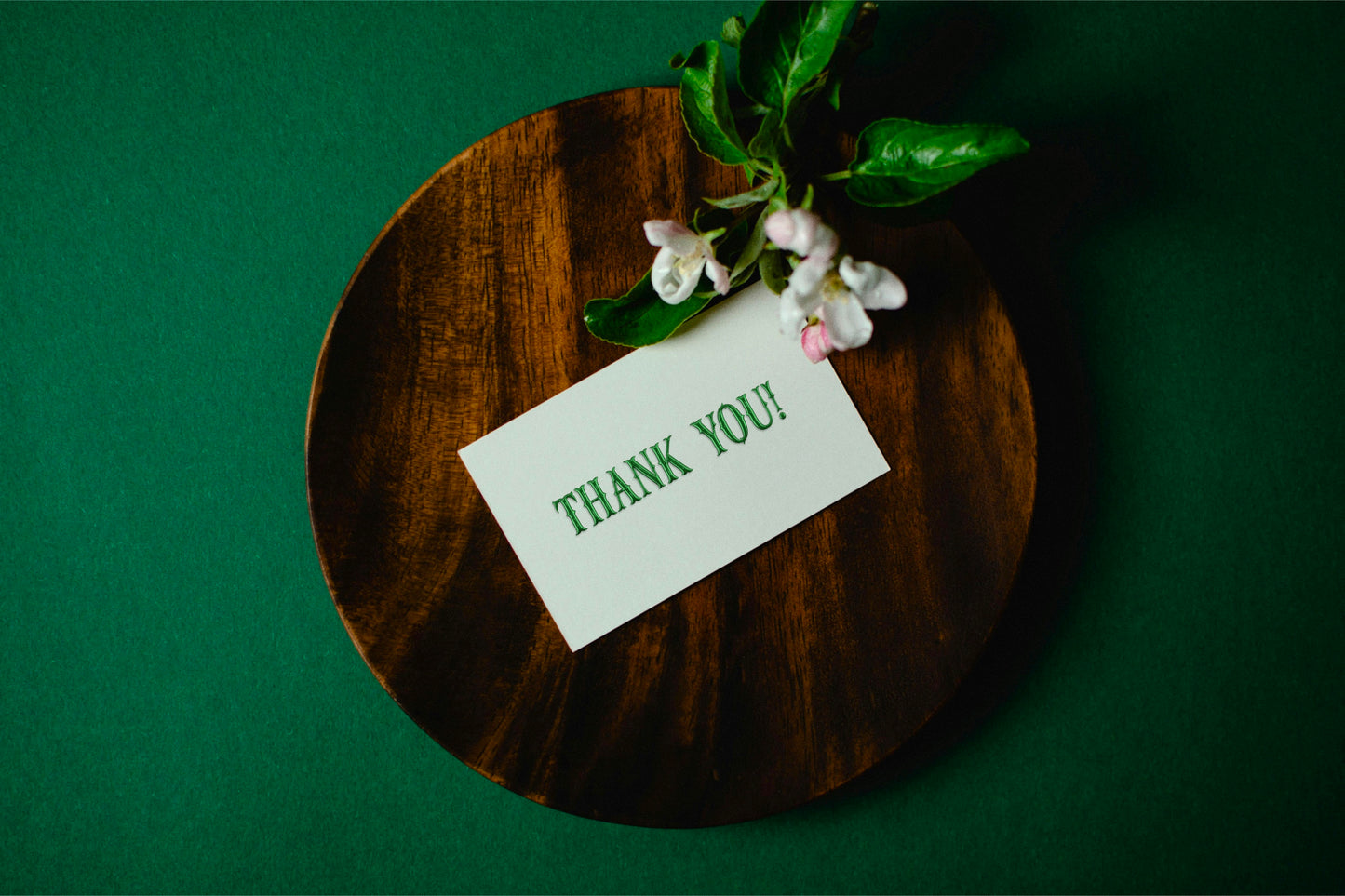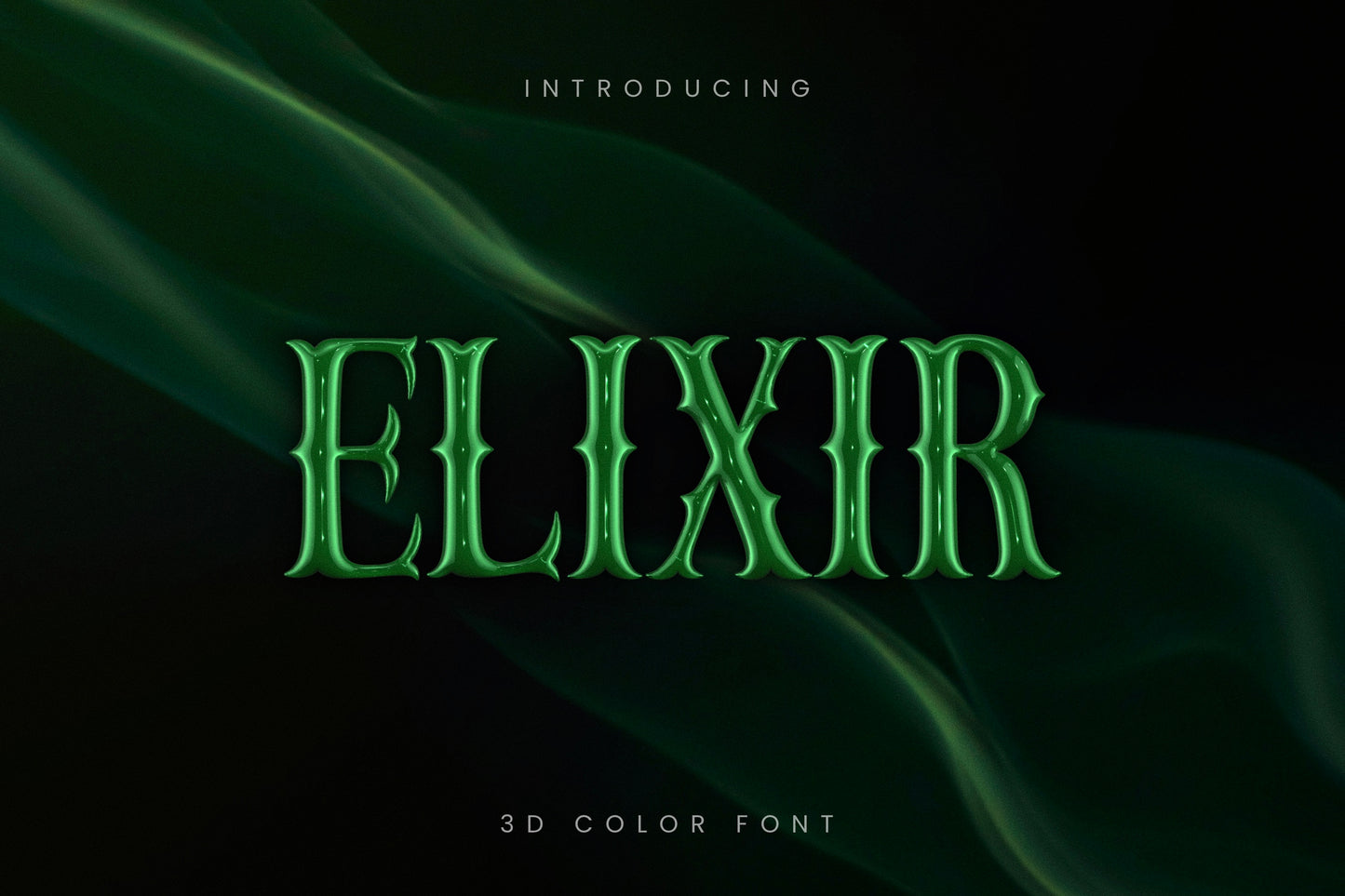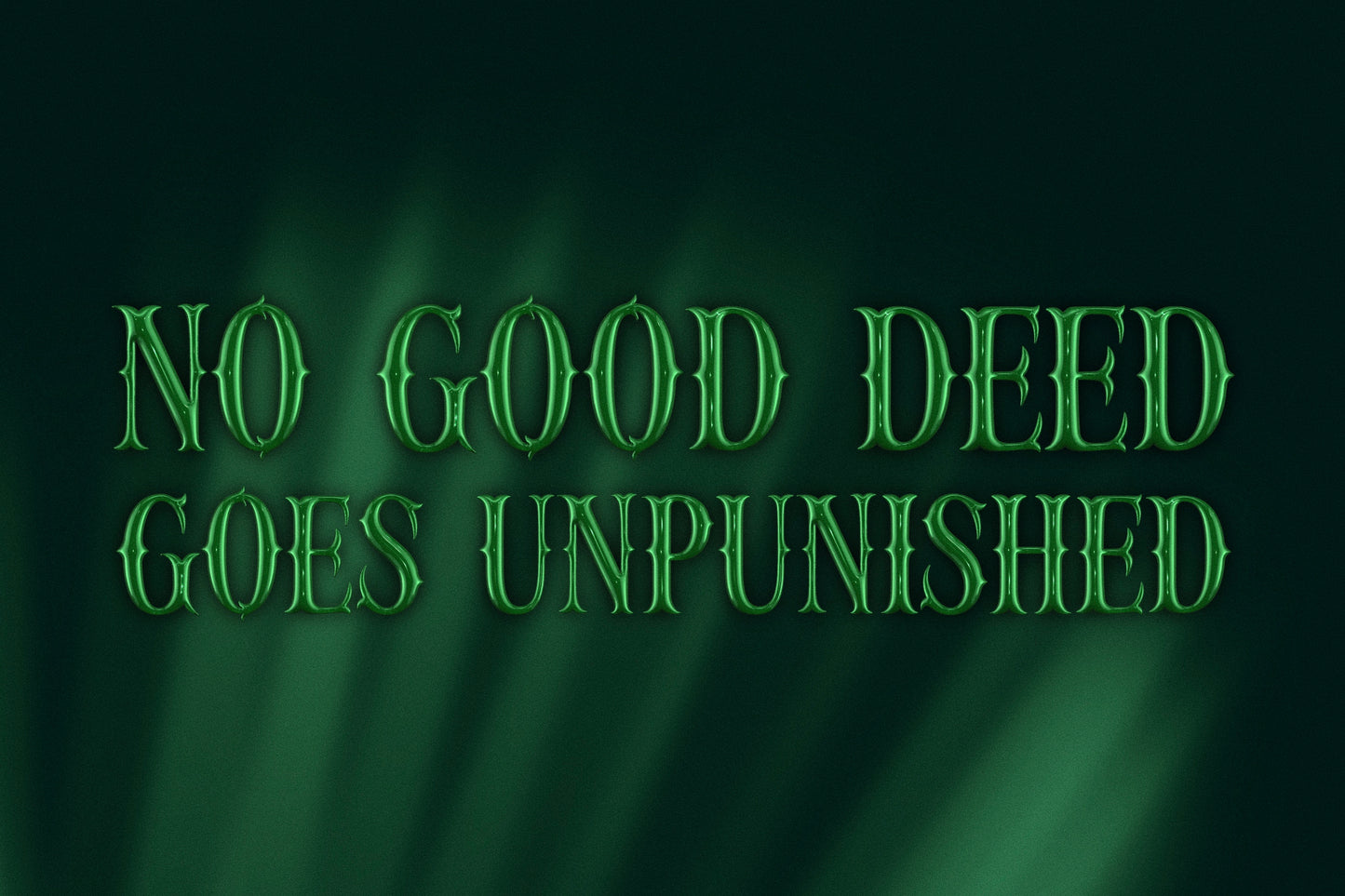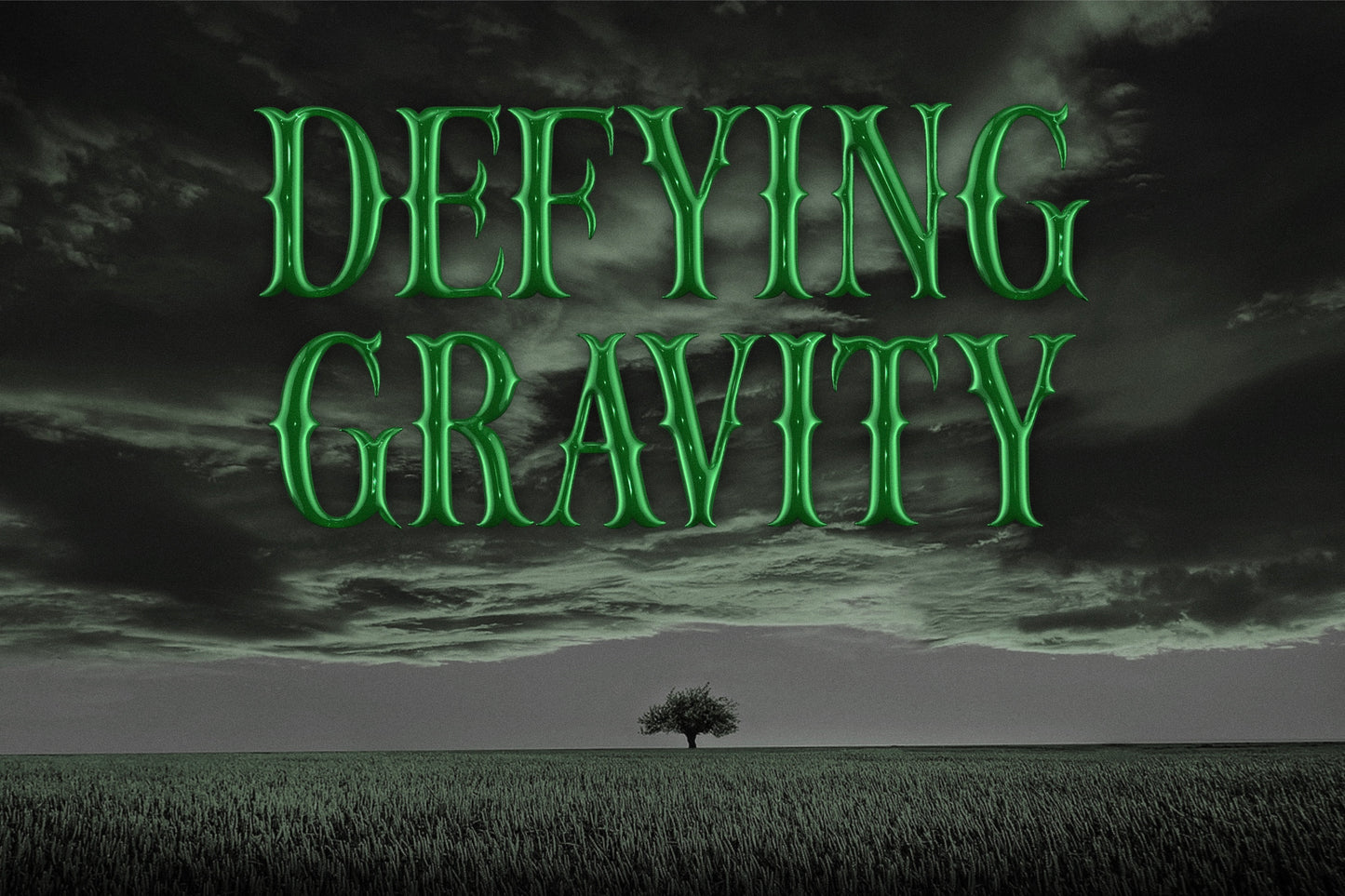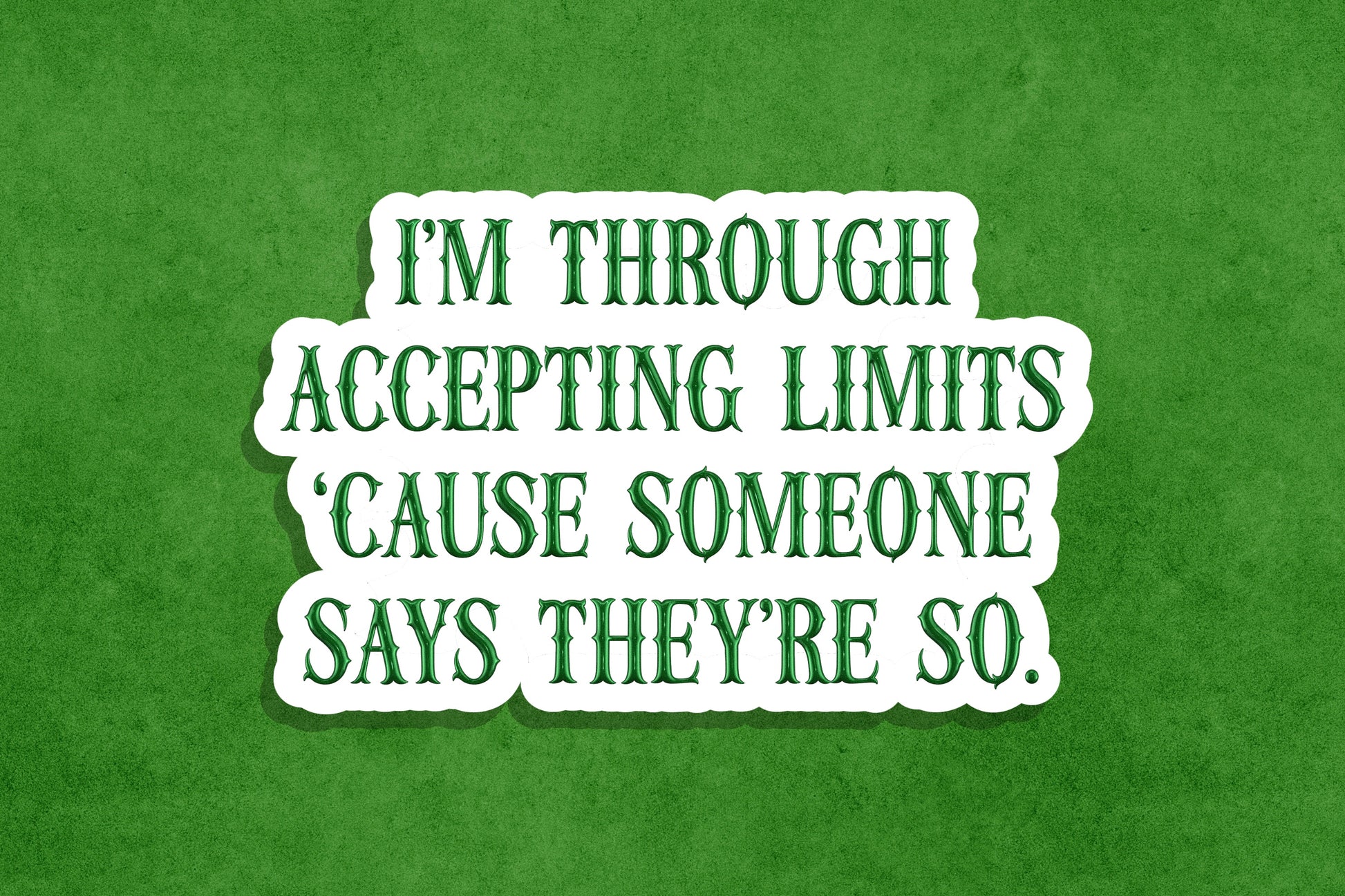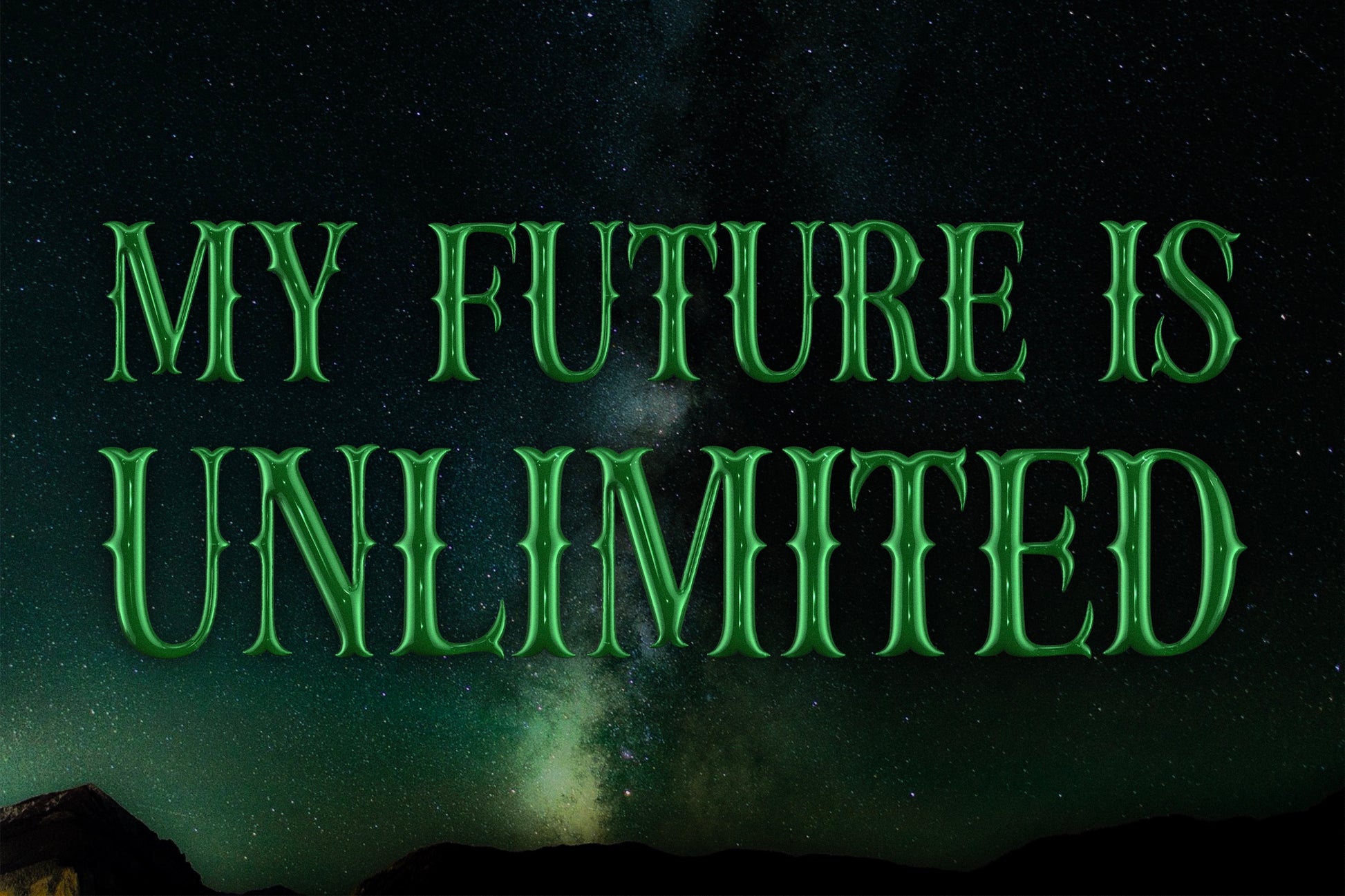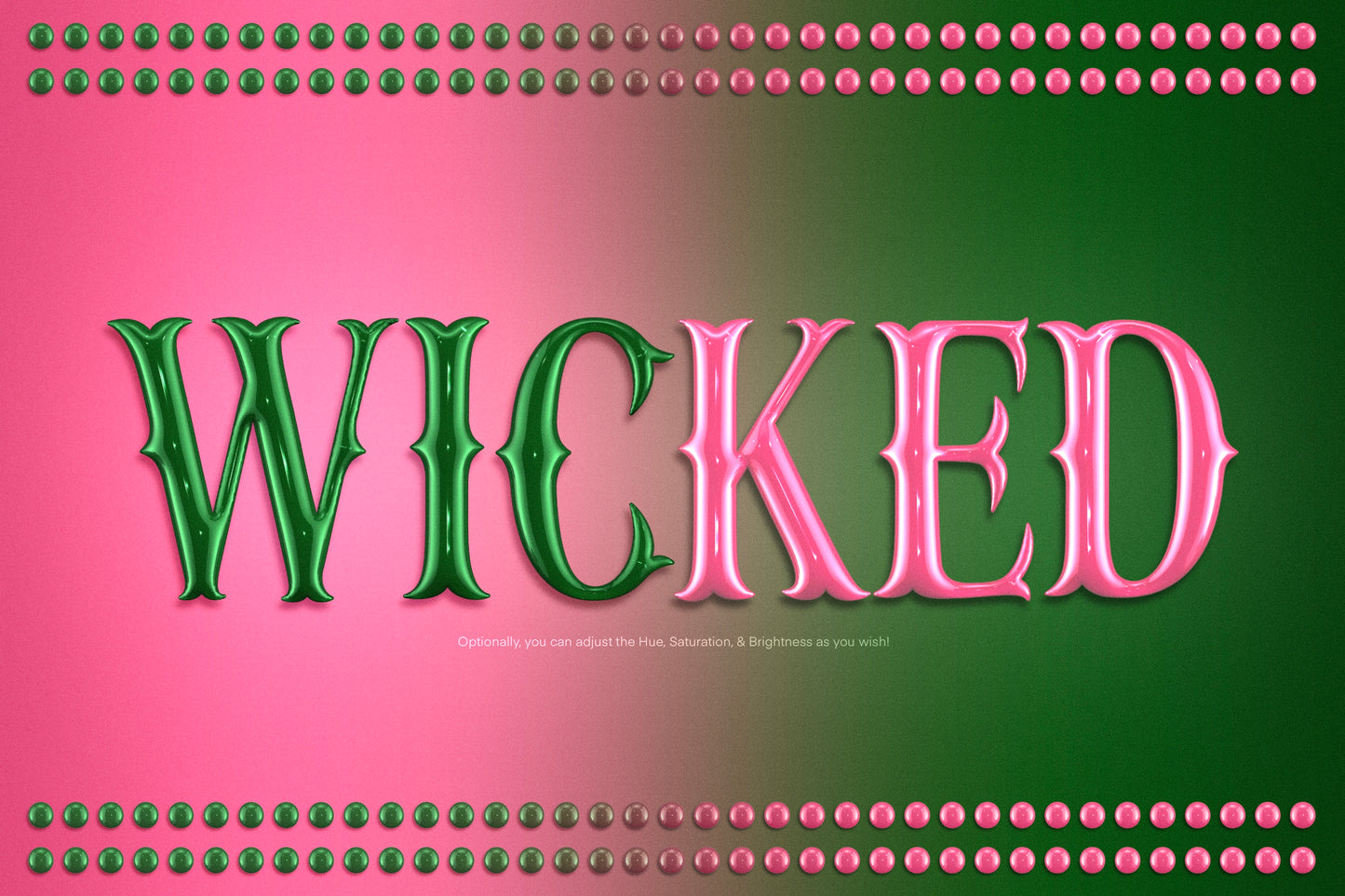
Elixir 3D SVG Color Font
Introducing the Elixir color font! This unique, 3D hand drawn serif font is a little eerie with a highly glossy shine to it. It would be absolutely perfect for casual, playful designs on stickers, invitations, flyers, t-shirts, posters, children’s branding, magazines, and much more!